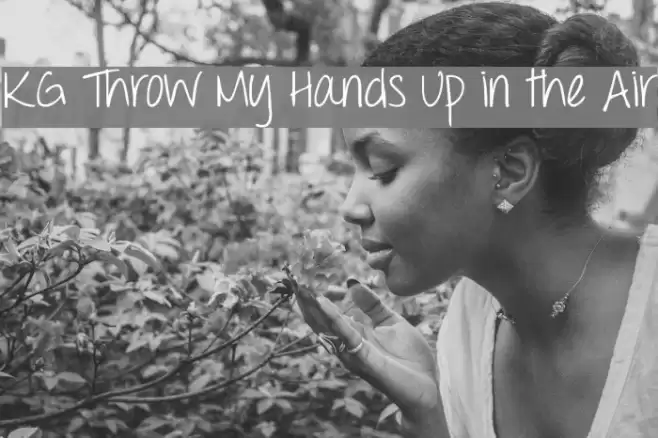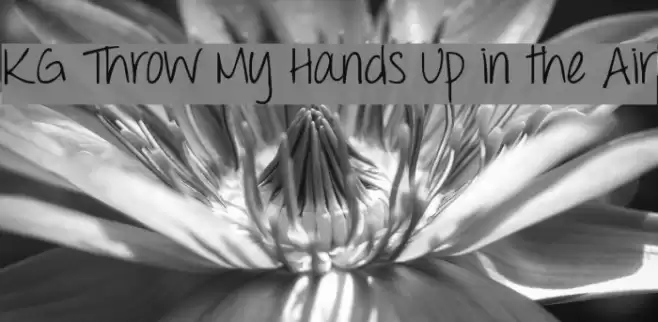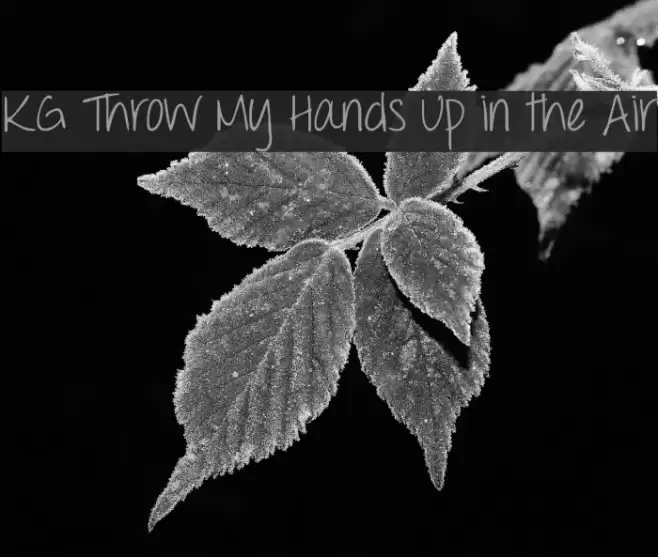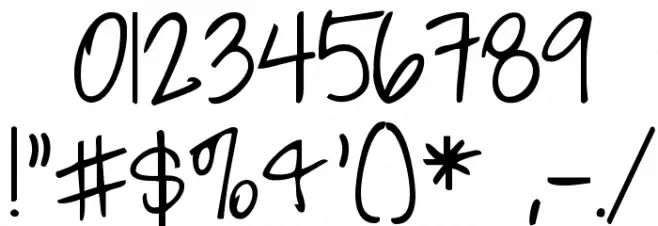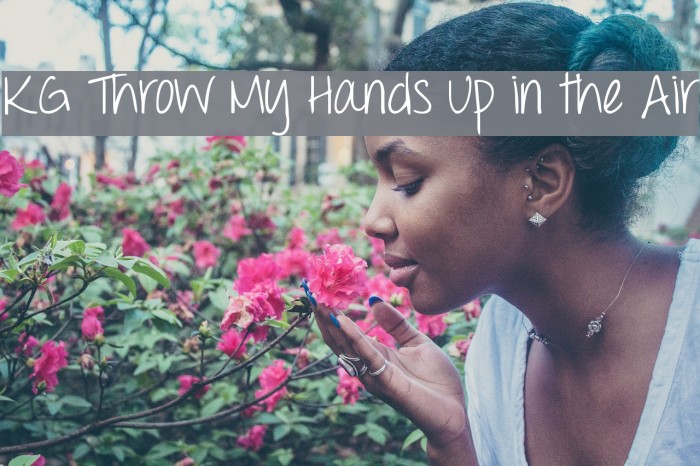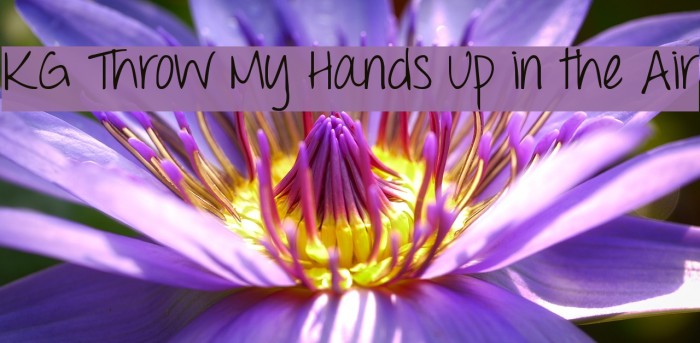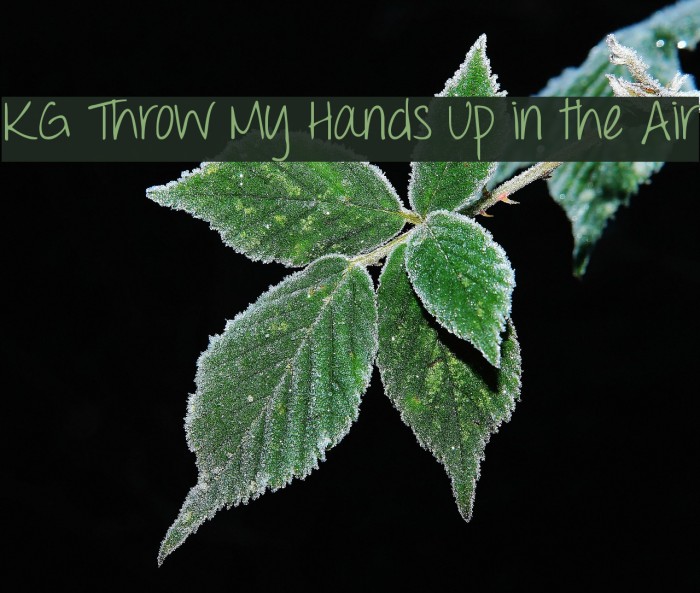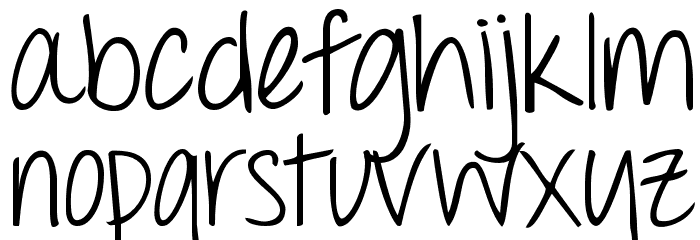
KG Throw My Hands Up in the Air Font
KG Throw My Hands Up in the Air Description
This font exhibits a playful and energetic handwritten style, characterized by its casual and informal appearance. The letters are slightly slanted, giving a sense of movement and spontaneity. The strokes are consistent in thickness, providing a uniform look across all characters. The uppercase letters are bold and prominent, while the lowercase letters maintain a friendly and approachable demeanor. Numbers are clear and legible, matching the overall style of the alphabet. Special characters are creatively designed, adding to the font's whimsical nature. This font is perfect for projects that require a personal touch or a fun, lively aesthetic.
A playful, handwritten font with a casual and energetic style from Uncategorized fonts.
- Proposed Projects: Ideal for greeting cards, children's books, playful branding, and social media graphics.
- Overall Style: Playful
- Use Case: Headlines, Logos, Informal Text